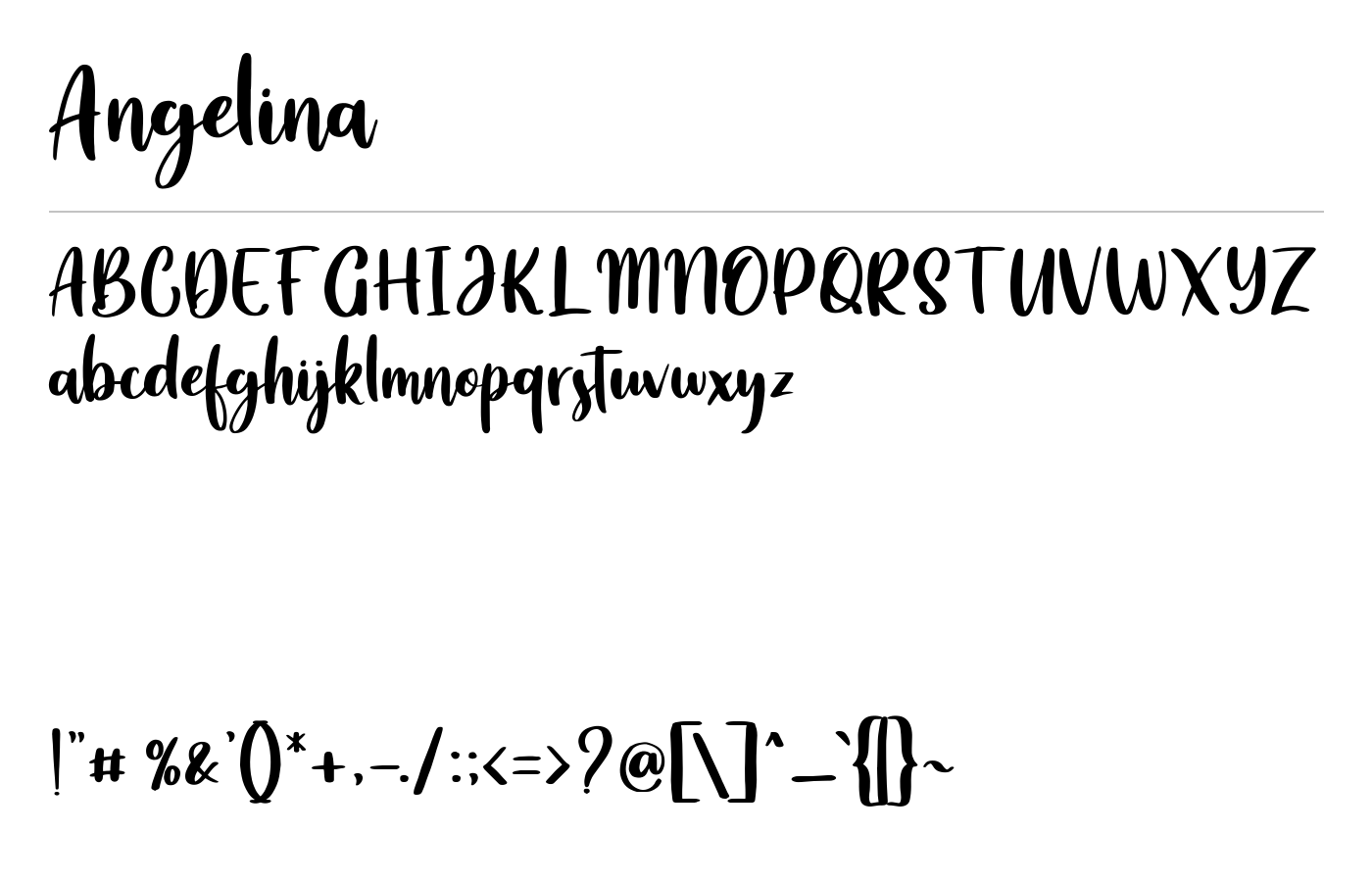
Angelina is a lively and stylish script font with a handwritten feel, featuring smooth, flowing strokes and a medium weight that balances elegance with approachability. Its tall x-height and slightly condensed letterforms make it suitable for expressive headings and branding that aims to convey warmth and personality. Perfect for creative projects and casual luxury branding, Angelina adds a friendly yet refined touch to logos, invitations, and editorial design.
Angelina Font
About Angelina Font